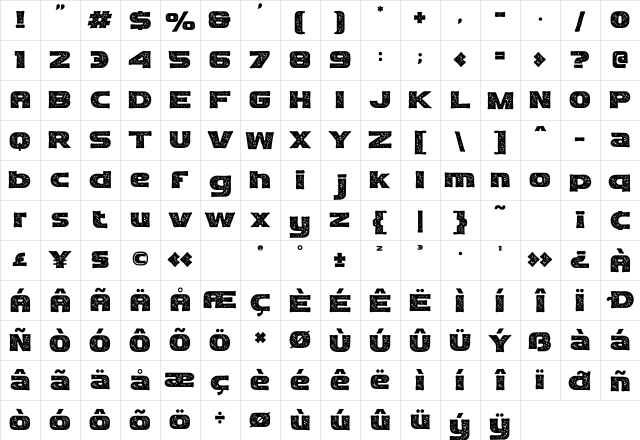
Marseilazi Rough
Style: Rough
Foundry: Putracetol Studio, Karanganyar.
Designer: Putra Novembria Candra Kusuma
Design Context for Marseilazi
Marseilazi embraces imperfection - its rough, textured character adds raw authenticity to designs that want to feel lived-in and unconventional.
Pro Tip: Use Marseilazi at larger sizes where the texture and irregularity of each letterform can be clearly seen - it loses its character at small sizes.